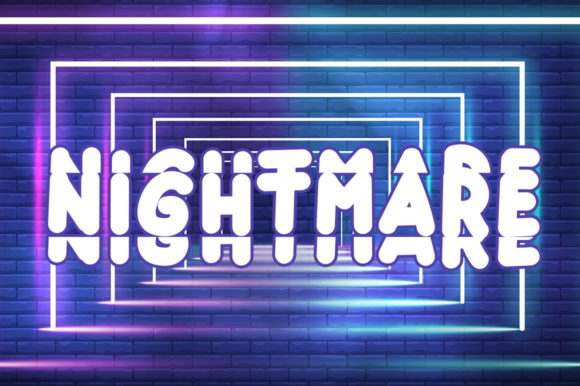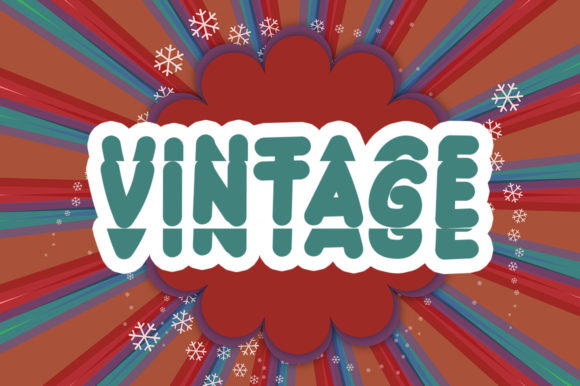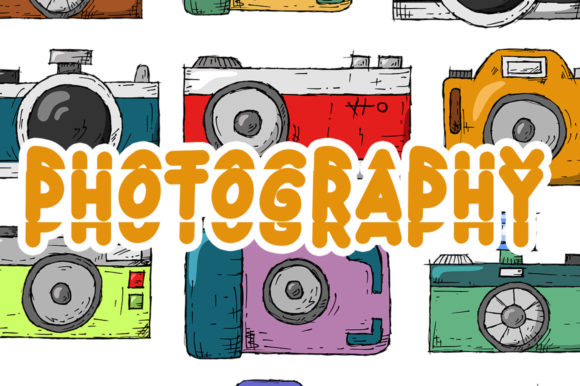
Introducing George Font: Elevate Your Designs with a Bold, Cool, and Neat Display Font
Are you tired of using the same old fonts in your designs? Look no further than George Font, a bold, cool, and neat display font that’s sure to take your creations to the next level. Whether you’re a designer, craftsperson, or simply someone who loves to dabble in typography, George Font is an incredible asset to have in your font library.
The Versatility of George Font
One of the best things about George Font is its versatility. No matter the topic or theme of your design, this font is sure to fit right in. From bold and edgy designs to more elegant and sophisticated ones, George Font’s unique character will add a touch of class and style that’s hard to find with other fonts.
Whether you’re designing a logo, a brochure, a website, or any other type of visual material, George Font is the perfect choice. Its clean lines, precise curves, and bold letterforms make it easy to read and visually appealing, ensuring that your message gets across clearly and effectively.
The Characteristics of George Font
So, what makes George Font so special? Here are just a few of its key characteristics:
- Bold: George Font is a bold font that’s designed to make a statement. Its thick lines and sturdy letterforms ensure that your text stands out from the crowd.
- Cool: With its sleek lines and modern aesthetic, George Font has a distinctly cool vibe that’s perfect for designs that need to be edgy and contemporary.
- Neat: Despite its boldness, George Font is also incredibly neat and easy to read. Its precise curves and clean lines ensure that your text is clear and legible, even at smaller sizes.
How to Use George Font in Your Designs
So, how can you use George Font in your designs? Here are a few ideas to get you started:
- Logos: George Font is a great choice for logos, particularly those that need to be bold and eye-catching. Its unique character will help your brand stand out from the crowd.
- Headings: Use George Font to add a touch of style and sophistication to your headings. Its bold letterforms will draw attention to your text and help it stand out.
- Posters: George Font is a great choice for posters, particularly those that need to be bold and attention-grabbing. Its clean lines and precise curves will ensure that your text is easy to read.
Why Choose George Font?
So, why should you choose George Font over other display fonts? Here are just a few reasons:
- Unique character: George Font has a unique character that’s hard to find with other fonts. Its bold, cool, and neat aesthetic will add a touch of style and sophistication to your designs.
- Versatility: George Font is incredibly versatile, making it suitable for a wide range of design applications.
- Easy to read: Despite its boldness, George Font is also incredibly easy to read. Its precise curves and clean lines ensure that your text is clear and legible.
| Font Name | George Font |
| Author | Mr.Soon Design |
In conclusion, George Font is an incredible asset to have in your font library. Its bold, cool, and neat aesthetic makes it perfect for a wide range of design applications, from logos and headings to posters and more. With its unique character, versatility, and ease of use, George Font is sure to elevate your designs and take them to the next level.